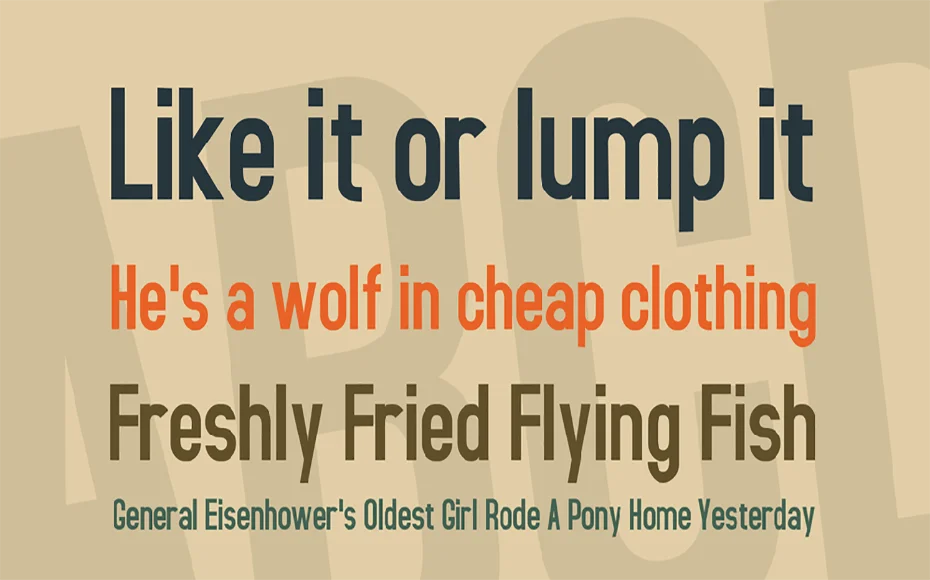
Accidental Presidency Font is a simple and friendly-looking font that is purposely designed for on-screen display and legibility. It has minimum spacing that makes it perfect for short titles.
A well-known font foundry called Tepid Monkey takes the credit for designing and publishing this font first.
This typeface is built with thick strokes which maintain the basic and modern look as well. Some of its curves from the outside are the same as we normally saw in sans serif fonts.
But some of its letters are featuring modern texture with sharpness. Moreover, it makes a better font pair with others that’s why you can use any other font for paragraphs.
You can easily cover a big approach to the designing field with its help, furthermore, to get an idea take a look image.
With this fine font, you can easily create book covers, banners, movie posters, game titles, headings, news headlines, comic covers, mugs printing, invitation cards, business cards, and many other similar approaches.
This fine quality font comes in only a single unique style including Regular. This single style contained 222 characters and 215 unique glyphs.